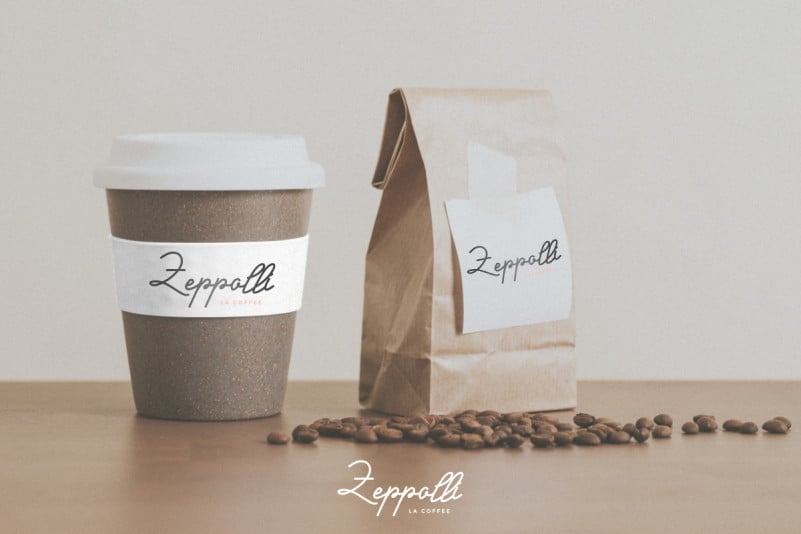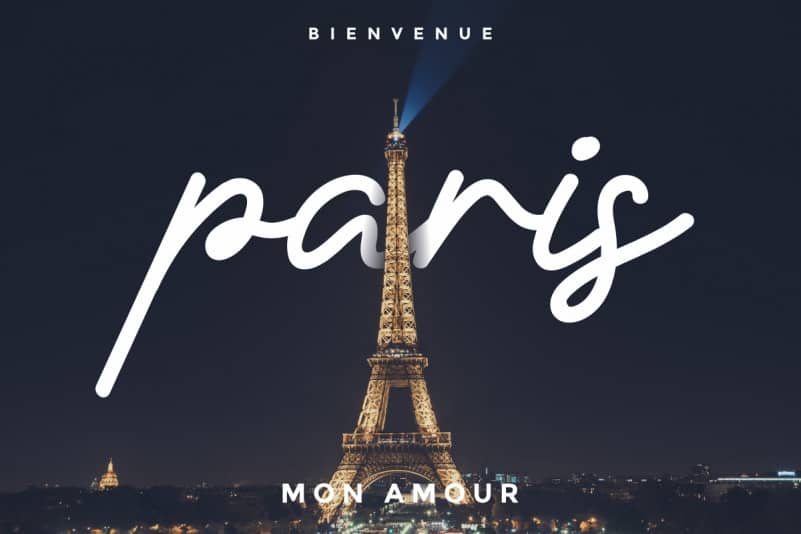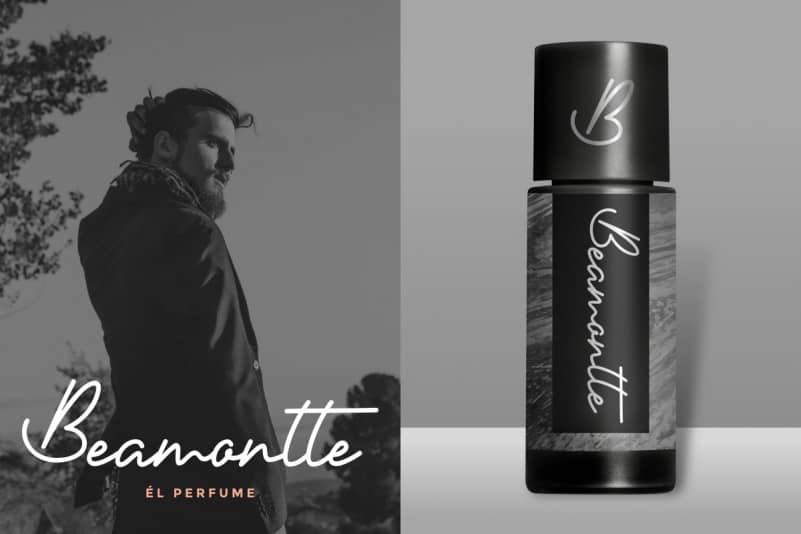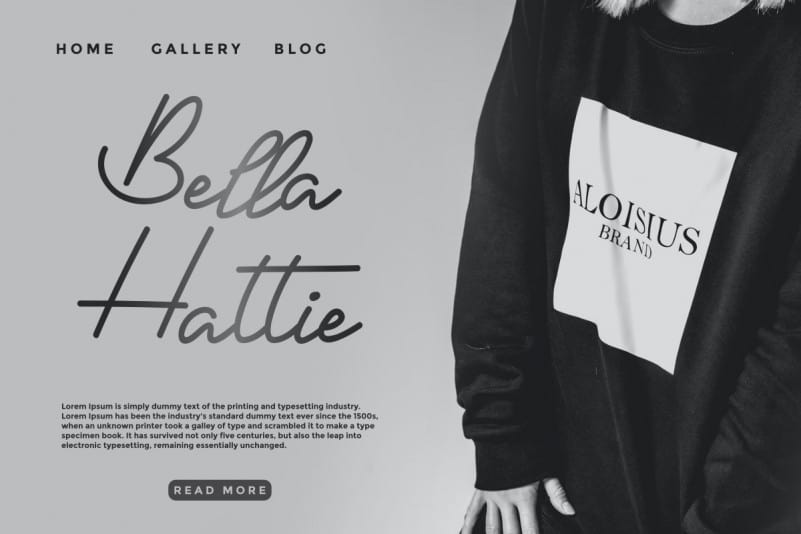
Hermony Signature Script Font
Hermony Signature Script Font is a simple signature font script with elegant handwriting style, handcrafted from our Studio here in Indonesia. Hermony Signature Font is an original handwritten script typeface with unique pen signature look. It has a stunning characters set, perfectly managed with well spaced and kerning. The theme style of this font is simple. elegant, sophisticated, stylish, clean and classic signature style.
Hermony Signature Script Font will be great for any projects (with extended license) including : branding, logo, stationery, business card, signage, flyer, brochure etc. Almost all industries will be match for this typeface: wedding, events, real estate, architect, law firm, florist, gardening, makeup artist, travel, hotel, musician etc